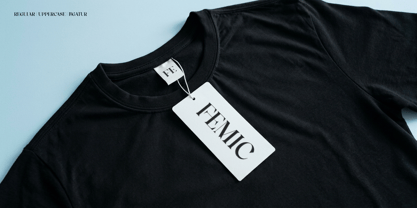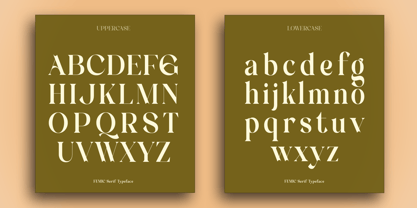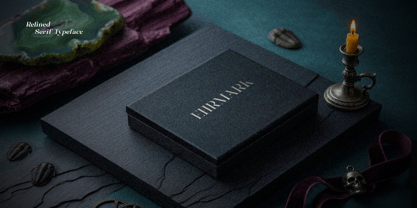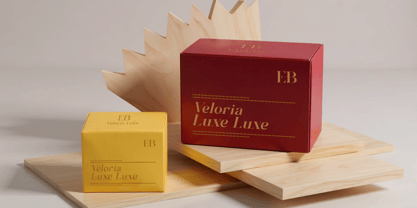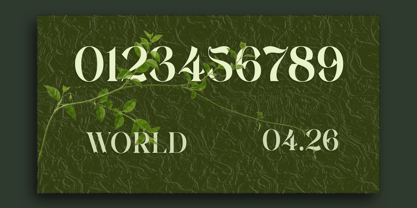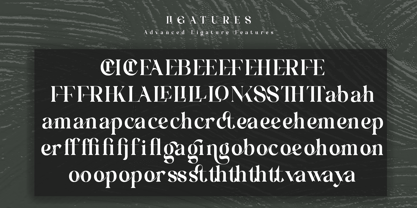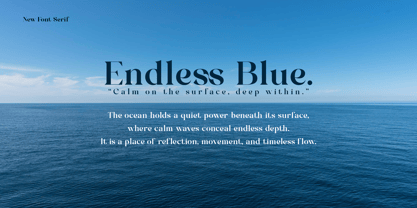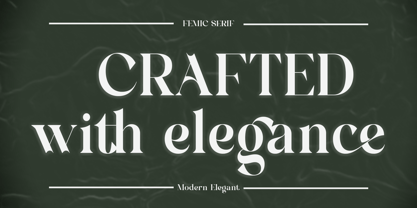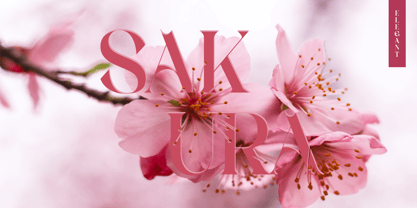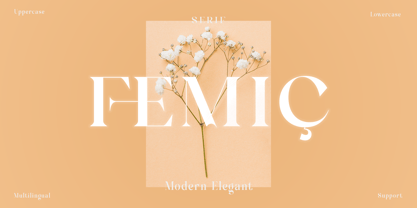
Femic
by SynType
The Femic Font Family was designed by M Khafid and published by SynType. Femic contains 1 styles. More about this family
FEMIC SERIF is a modern elegant serif typeface crafted to bring sophistication, beauty, and timeless charm into every design. With its refined letterforms, graceful curves, and carefully balanced contrast, FEMIC SERIF offers a luxurious yet contemporary aesthetic that feels both classic and fresh. Designed with attention to detail, this typeface embodies elegance in its purest form, making it perfect for projects that seek a polished and premium visual identity.